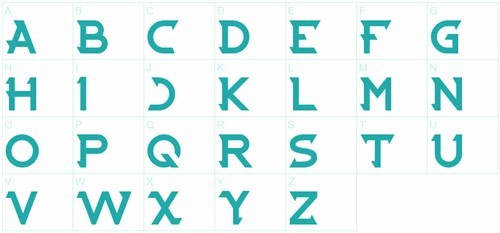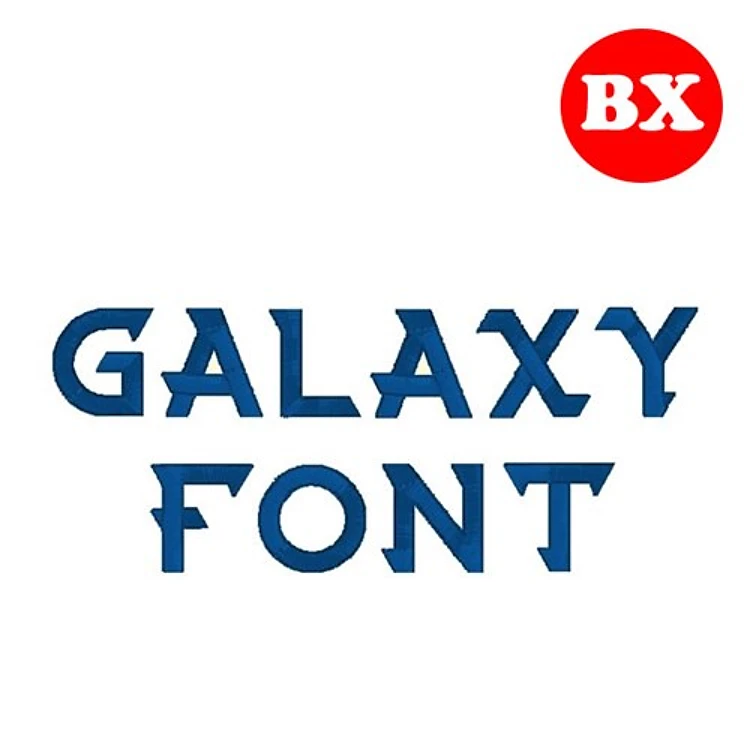
Unicorn Creatives is happy to present Galaxy Font Embrilliance Embroidery Font - Bold Block Style Letters - BX font machine embroidery font which has Bold, blocky embroidery font with sharp edges in striking blue, designed for eye-catching projects like home décor or apparel. Available as BX font and in Embrilliance format. included. If you would like to view more embroidery fonts and alphabets please search our embroidery fonts page.
Galaxy Font Embrilliance Embroidery Font - Bold Block Style Letters - BX font